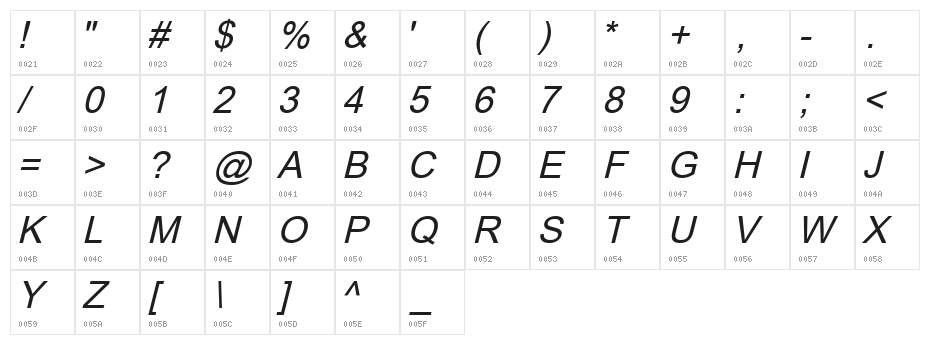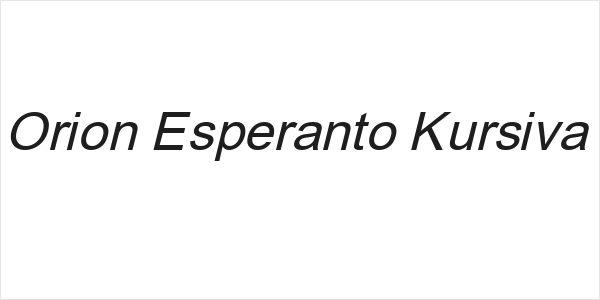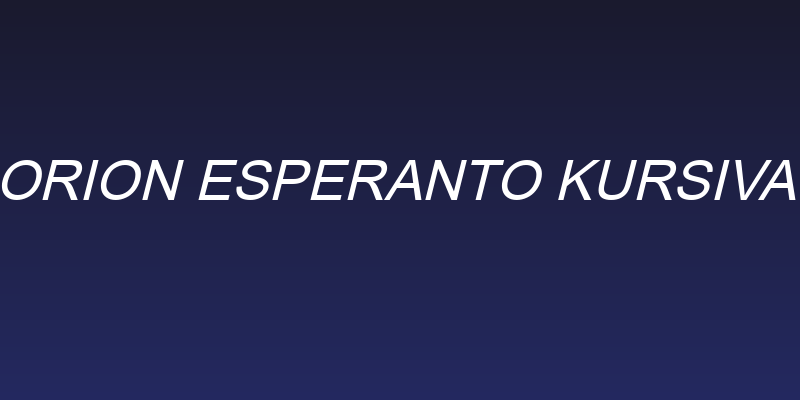
Orion Esperanto Kursiva Font
Orion Esperanto Kursiva Description
This font exhibits a sleek and modern design with a distinct italic slant, giving it a dynamic and forward-moving appearance. The characters are well-proportioned with a consistent stroke width, contributing to its clean and professional look. The uppercase letters are slightly taller than the lowercase, maintaining a balanced and readable structure. The numerals are clear and easily distinguishable, while the special characters are well-integrated, ensuring versatility in various contexts. The overall style is contemporary, making it suitable for a wide range of applications.
| Proposed Projects | Ideal for branding, advertising, and editorial design where a modern and professional look is desired. |